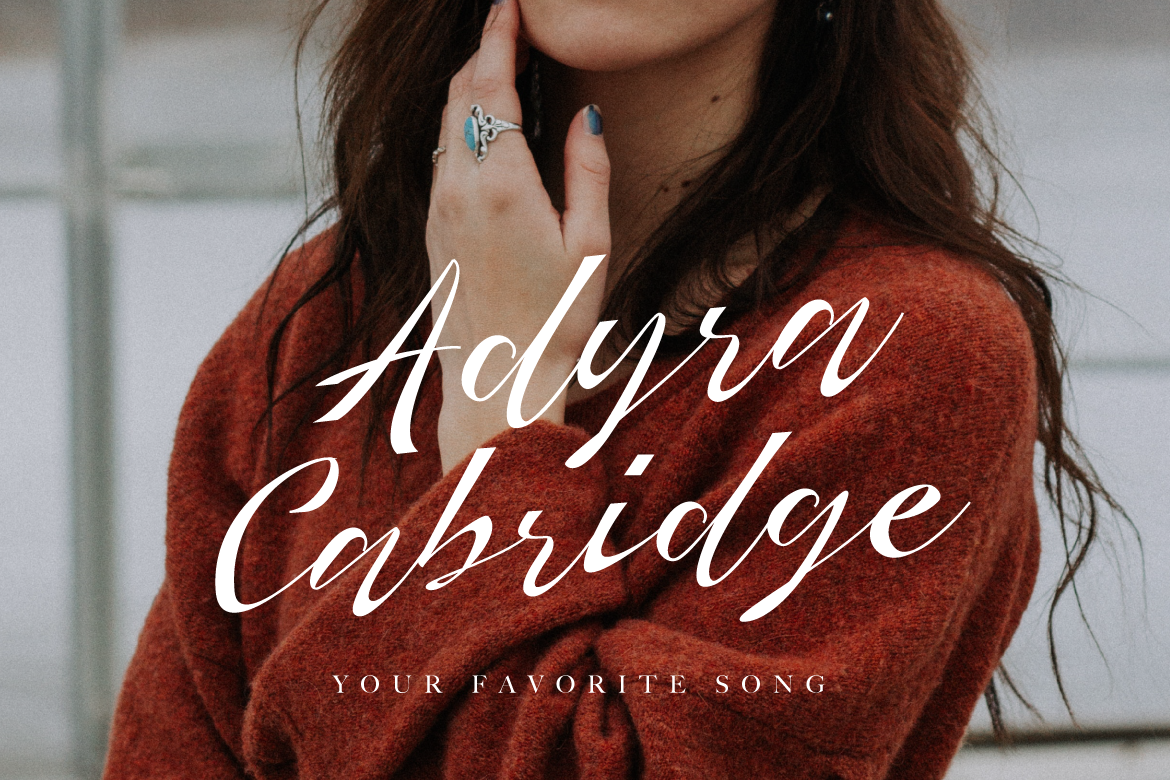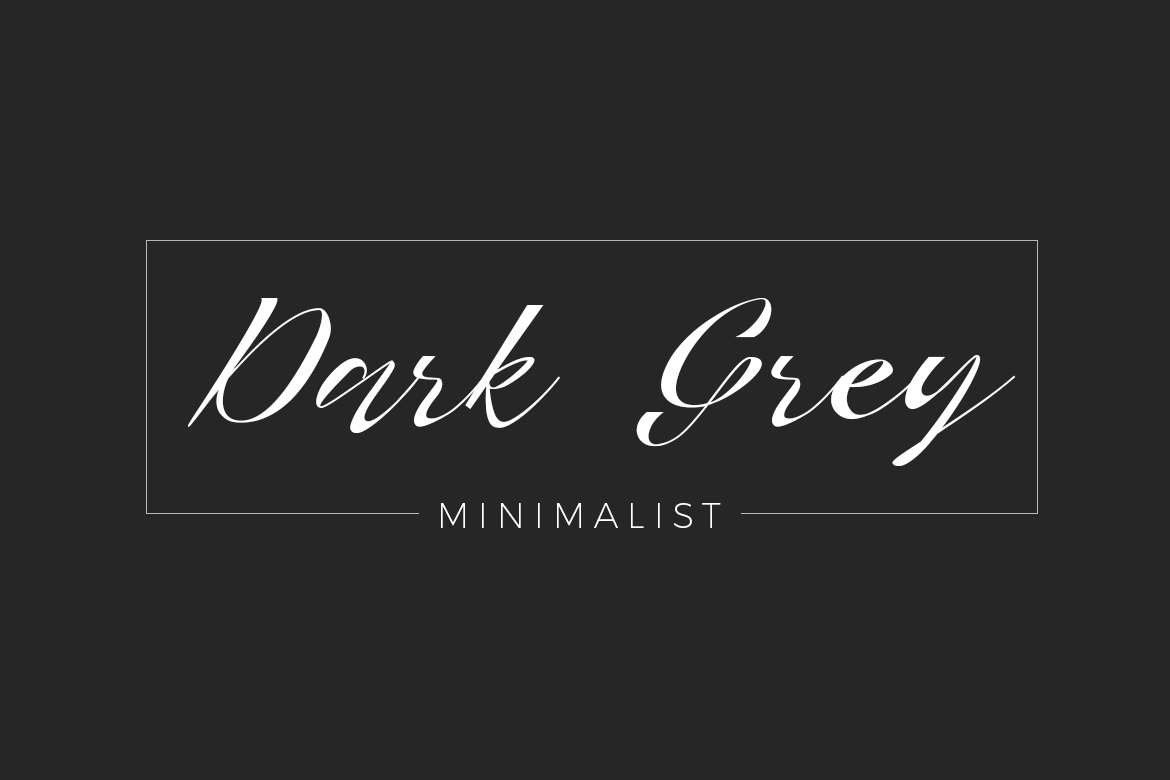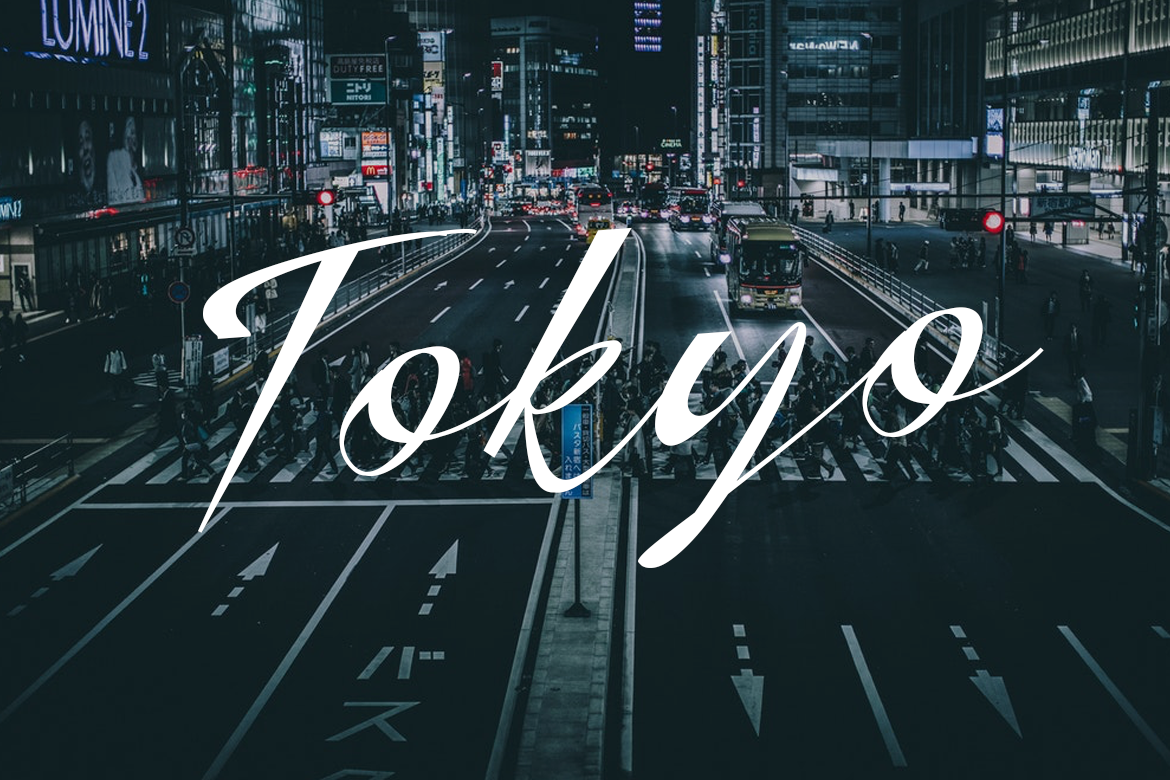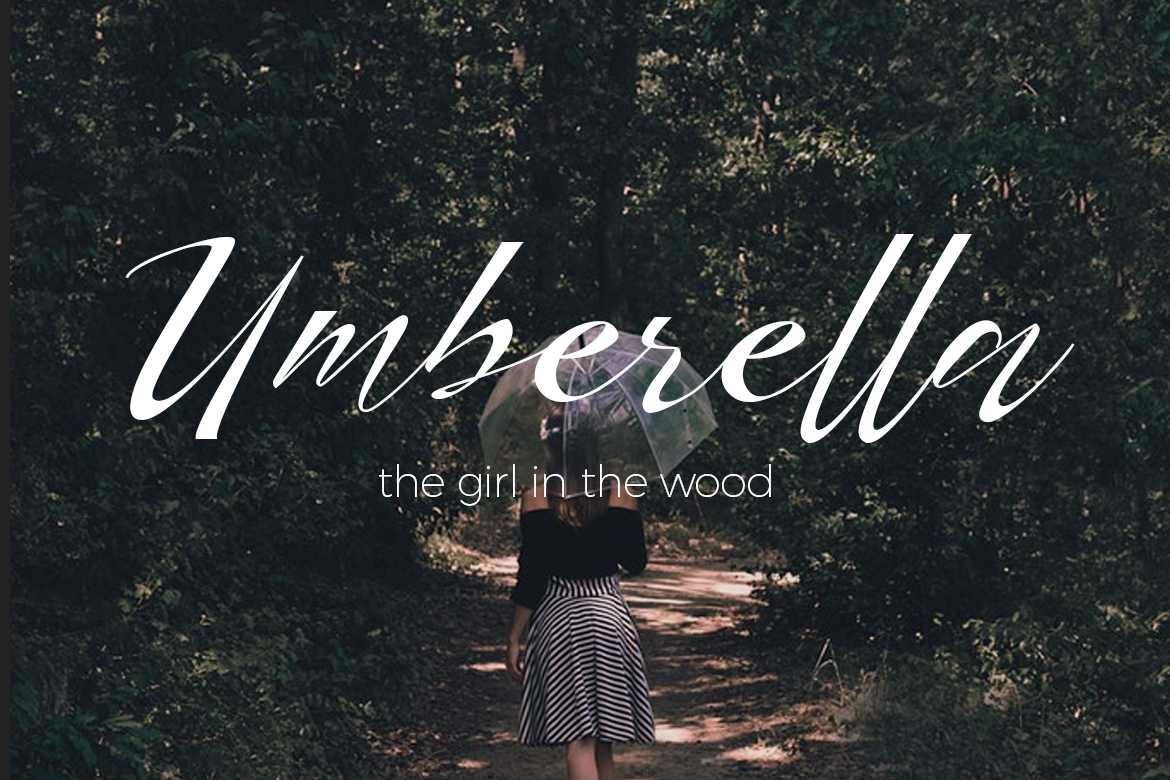
Herdrey Font
About Herdrey Font
Herdrey an elegant and modern calligraphy/cursive script; this is a wonderfully clean and striking font, and can add some class to any associated design.